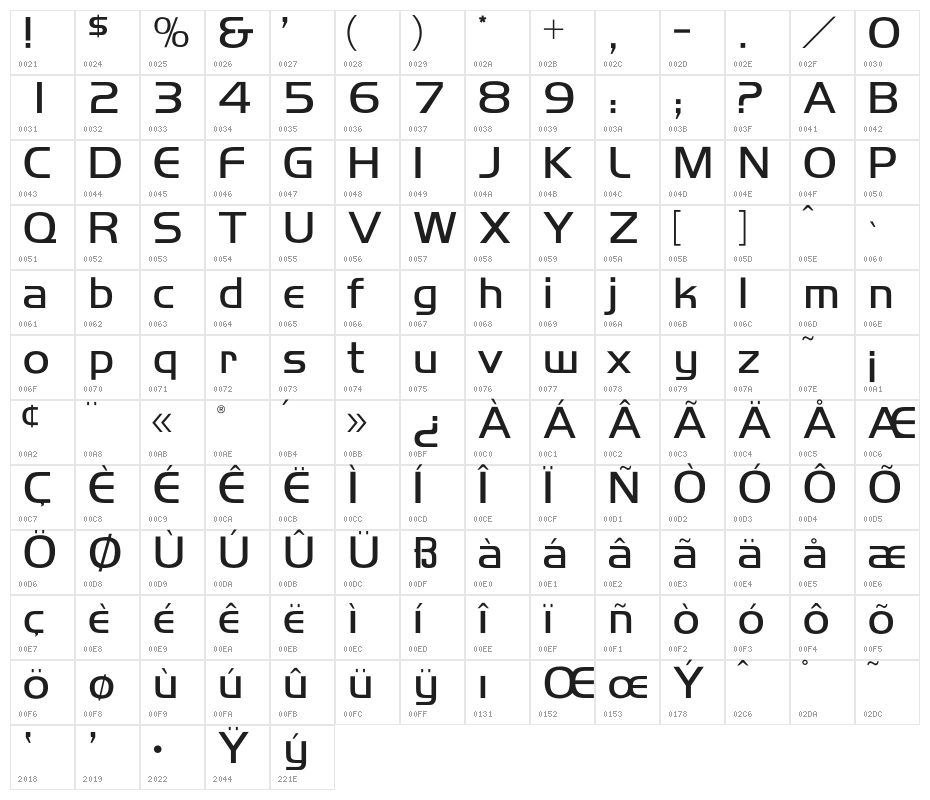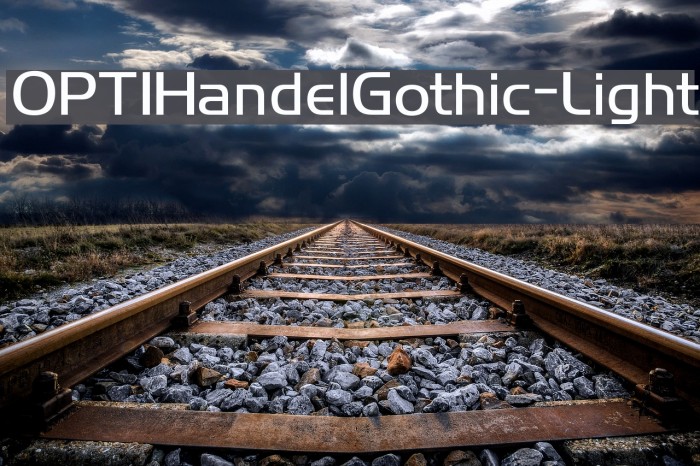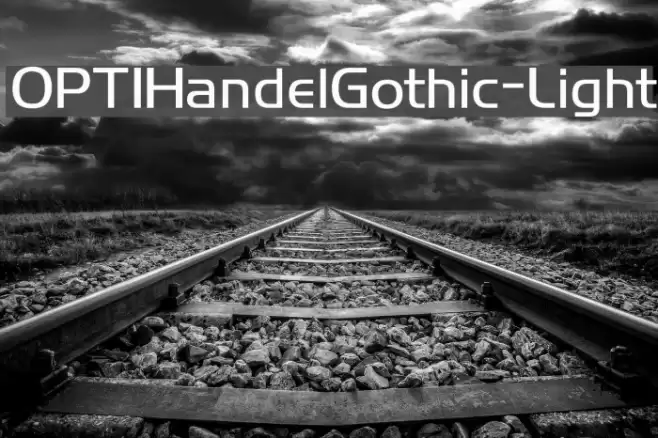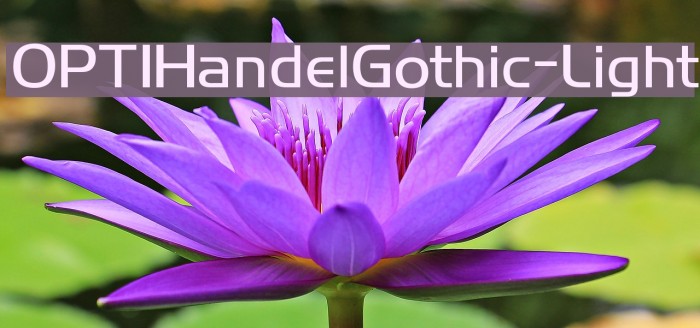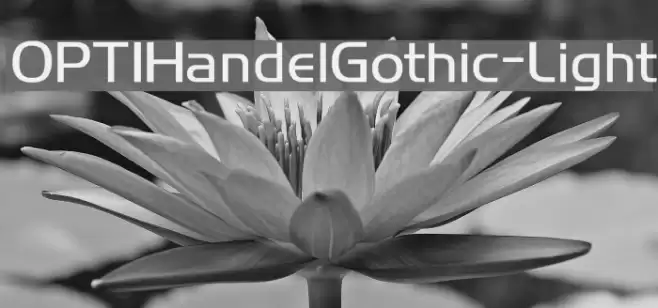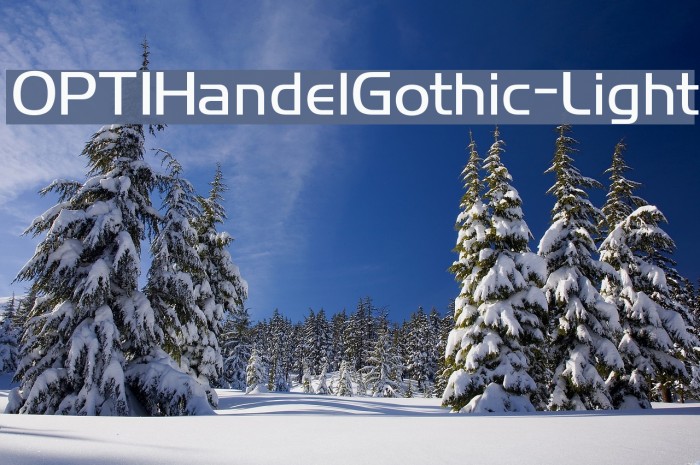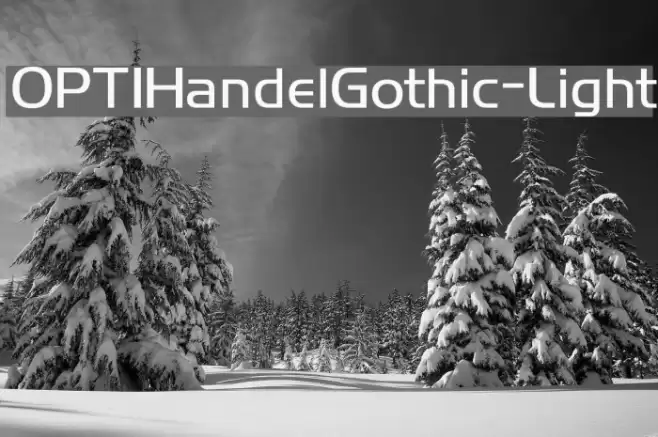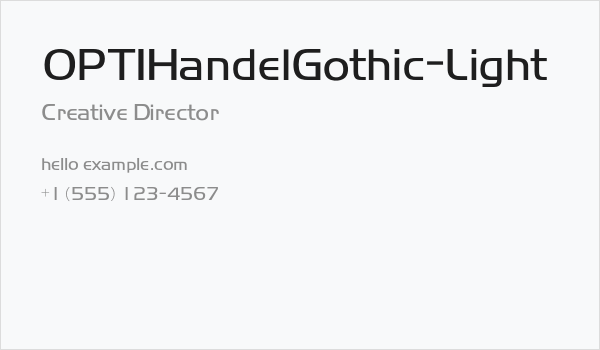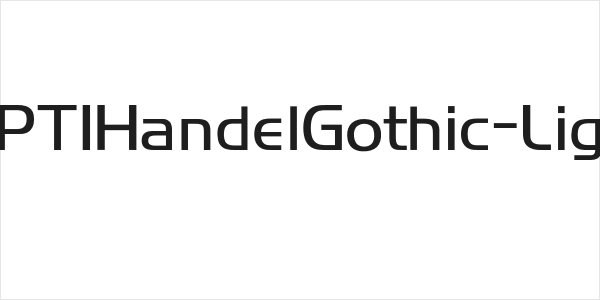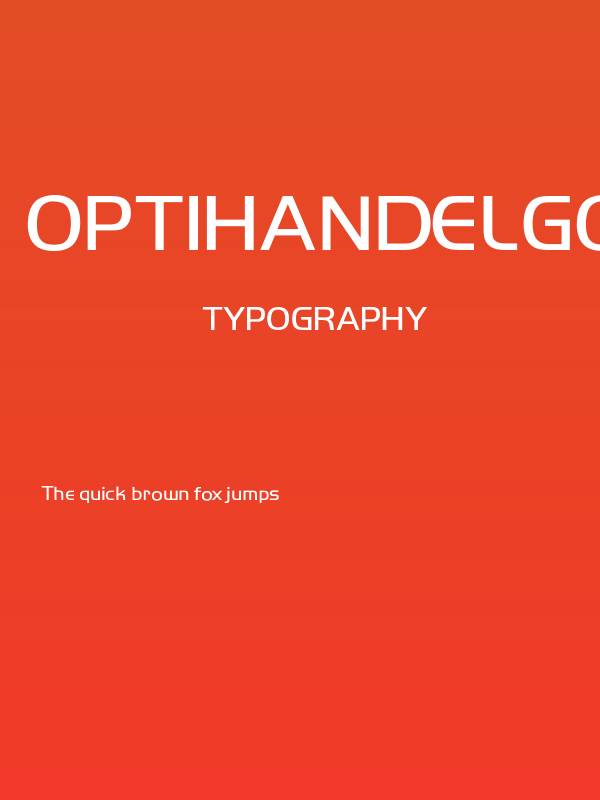
OPTIHandelGothic-Light Font
OPTIHandelGothic-Light Description
This font features a sleek, modern design with clean lines and a geometric structure. The characters are evenly spaced, providing a balanced and harmonious appearance. The uppercase letters are bold and commanding, while the lowercase letters maintain a consistent style that complements the overall aesthetic. The numerals are clear and distinct, making them easy to read. Special characters are well-integrated, adding versatility to the font's usage. Its light weight and sans-serif style give it a contemporary feel, suitable for a variety of design applications.
| Proposed Projects | Ideal for branding, digital interfaces, advertising, and editorial design. |